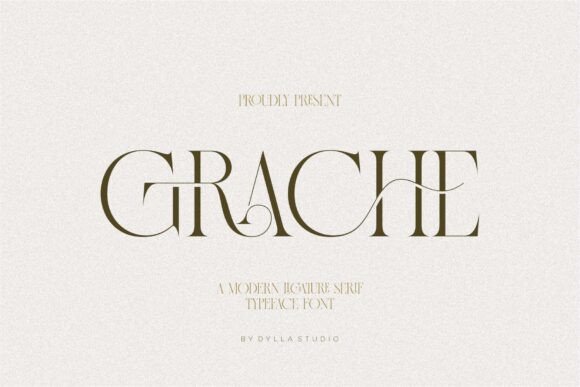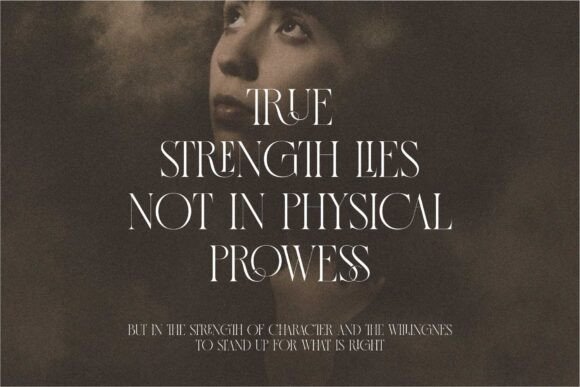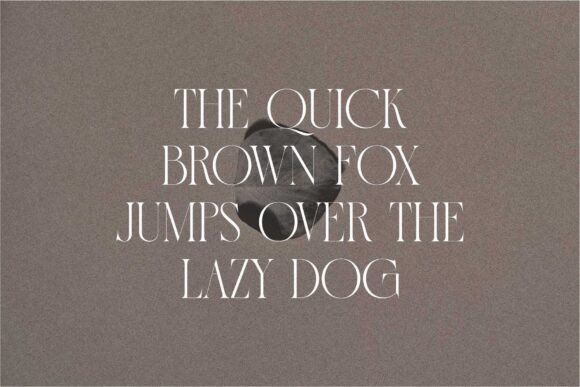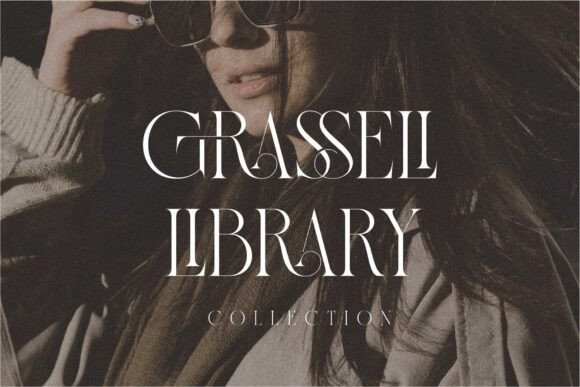
Grache Font: Elegant Serif for Modern Logo Design & Branding
About the Grache Font
Welcome to the world of Grache Font, a typeface that will inspire your next great project. Grache is a modern serif font, inspired by the famous minimalist logo perfect for the purposes of designing templates, brochures, videos, advertising branding, logos, invitation, layout design, elegant crafting, beauty design and more.
Grache’s clean lines and subtle serifs lend themselves well to headlines, logos, and short-form text in branding materials and advertising. Its minimalist elegance works particularly well for sophisticated brands within the beauty, fashion, or luxury goods sectors. However, its limited x-height makes it unsuitable for large blocks of body text or UI elements where readability is paramount.
Pairing Grache effectively requires considering its inherent sophistication. Consider pairing it with a clean sans-serif like Montserrat for a modern, balanced feel, or a geometric sans-serif such as Futura for a more striking contrast. For a touch of warmth, a script font with restrained flourishes could work well, but avoid overly ornate options that would clash with Grache’s minimalist aesthetic.
Grache projects a feeling of refined modernity and understated elegance. Its personality is best described as sophisticated and serious, yet approachable; making it ideal for conveying a message of quality and trustworthiness.
Grache Font Usage Examples